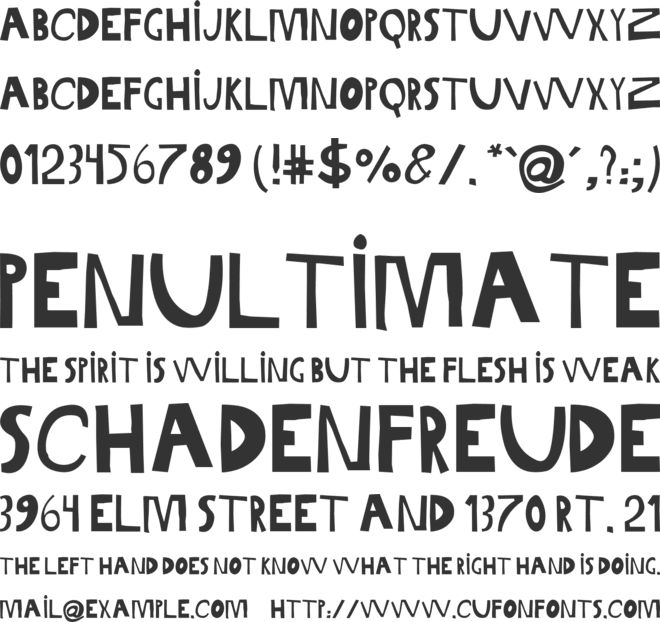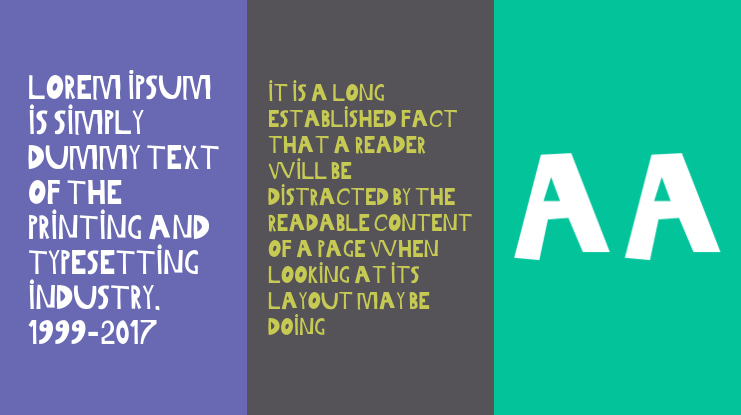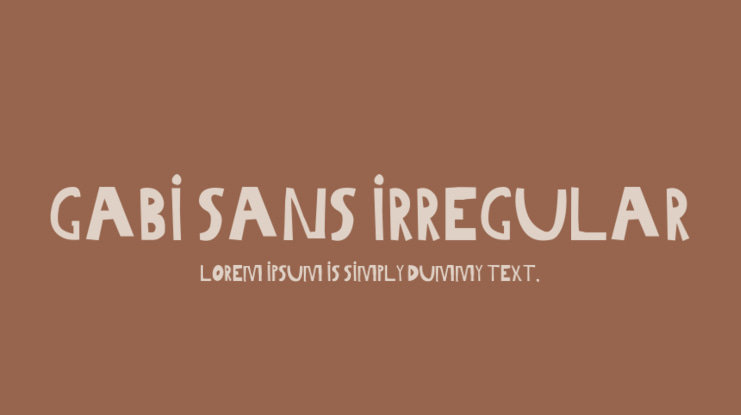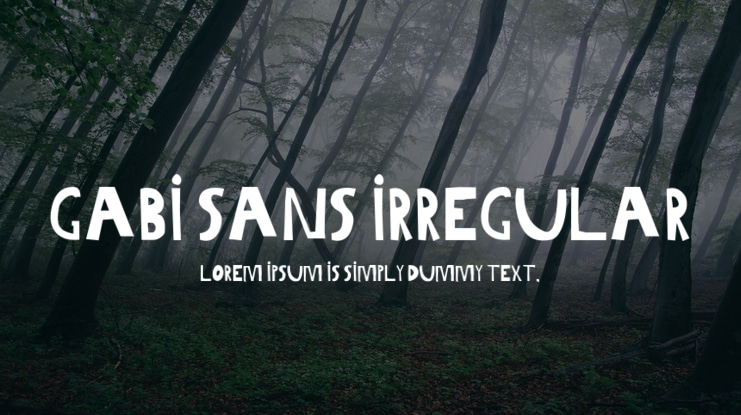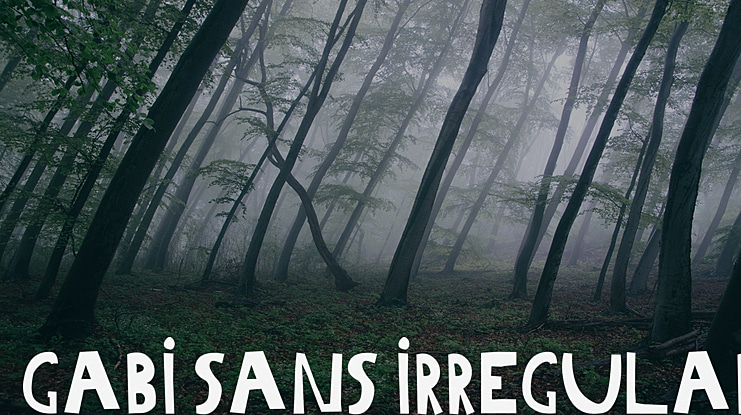
Gabi Sans Irregular Font
Gabi Sans Irregular is a decorative font inspired by the letter that Gabriel, my nephew, aged 9, uses in his drawings :)
The font has uppercase letters, numerals and various special characters.